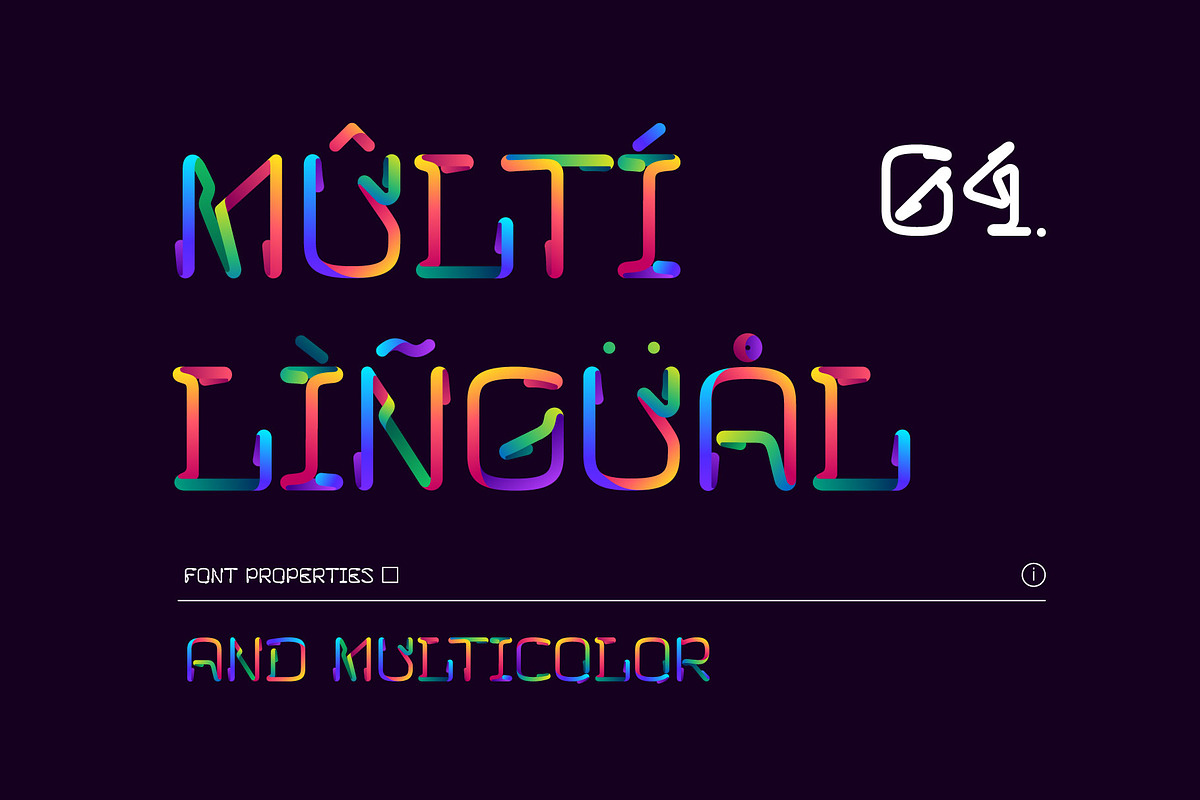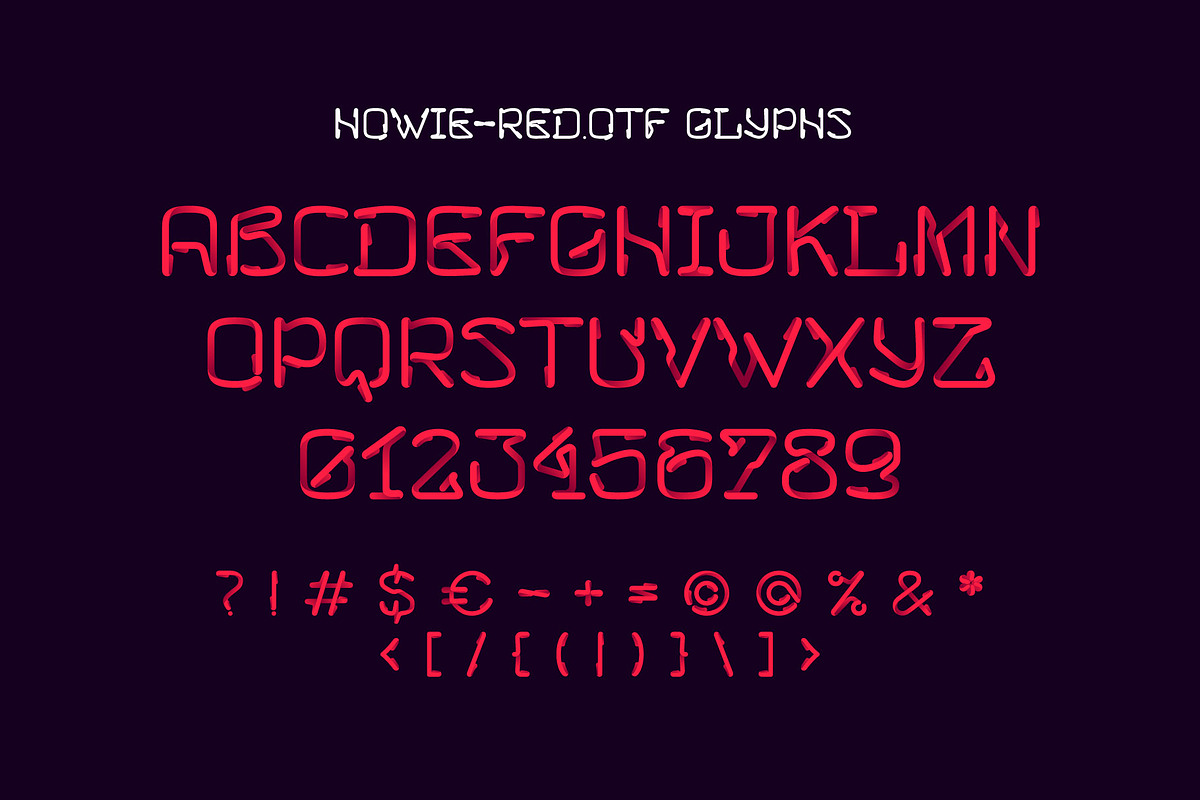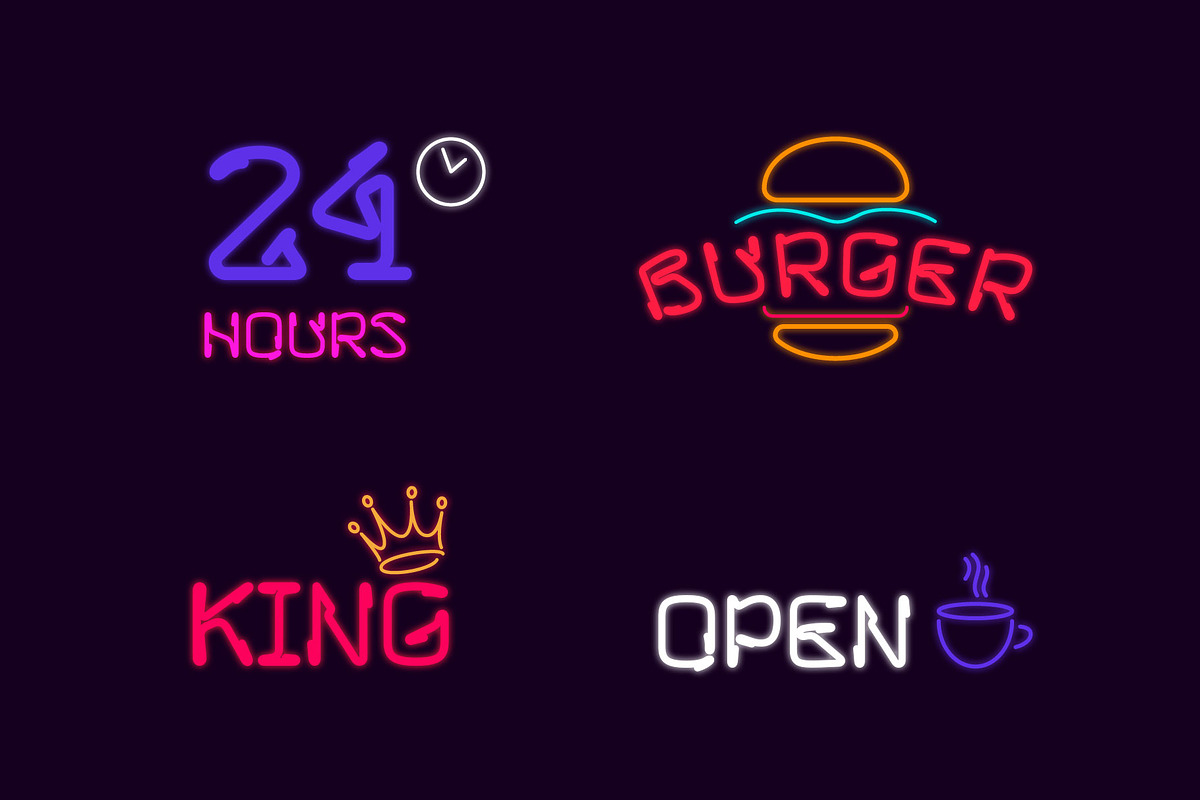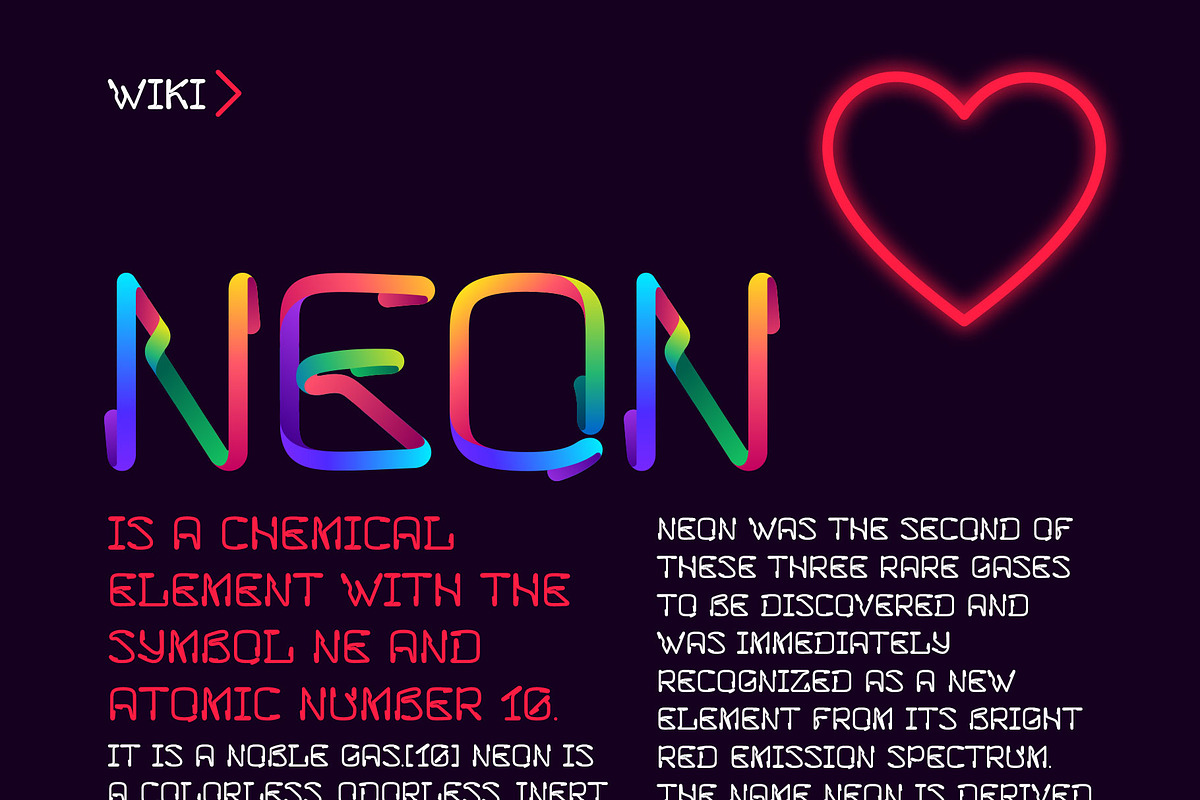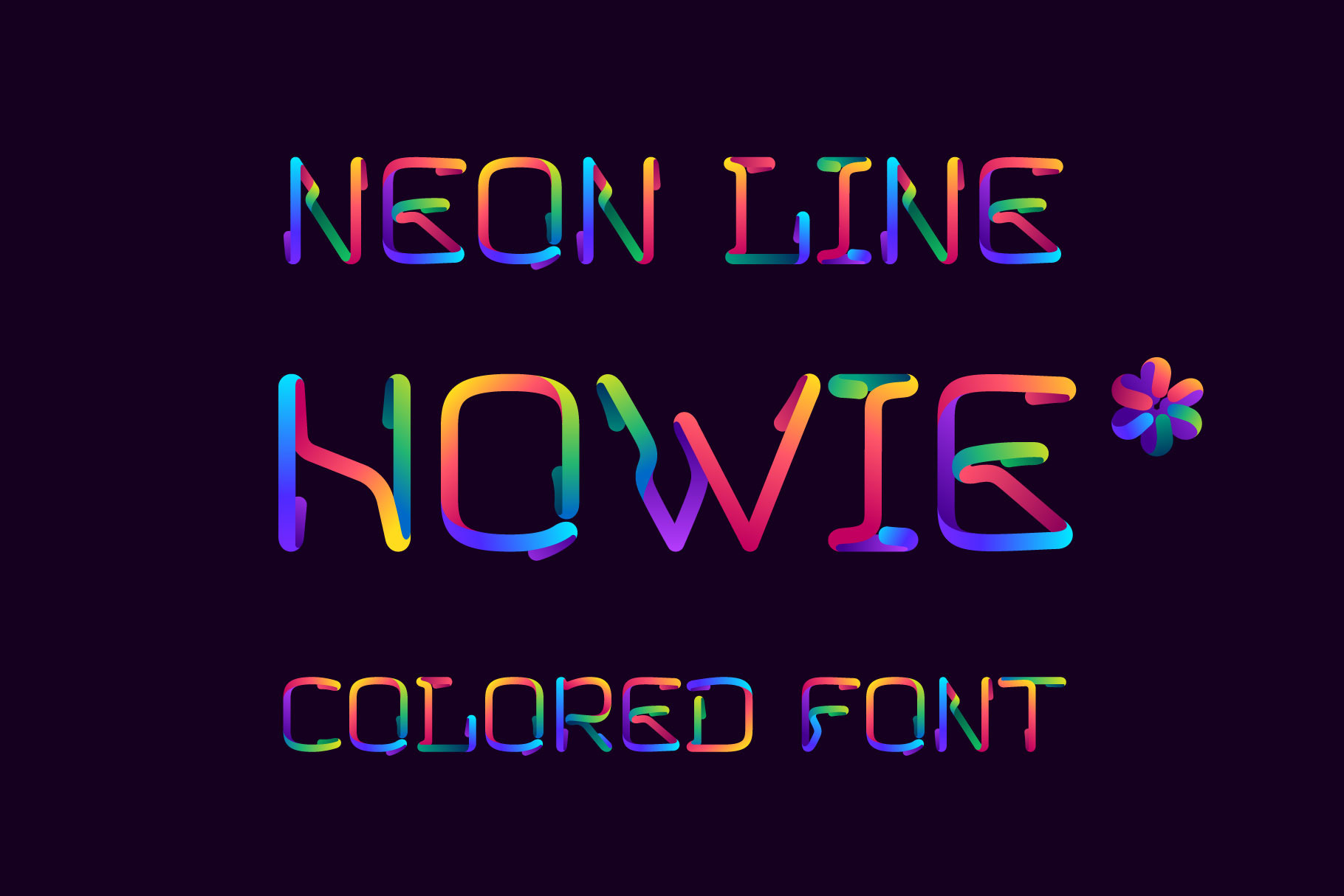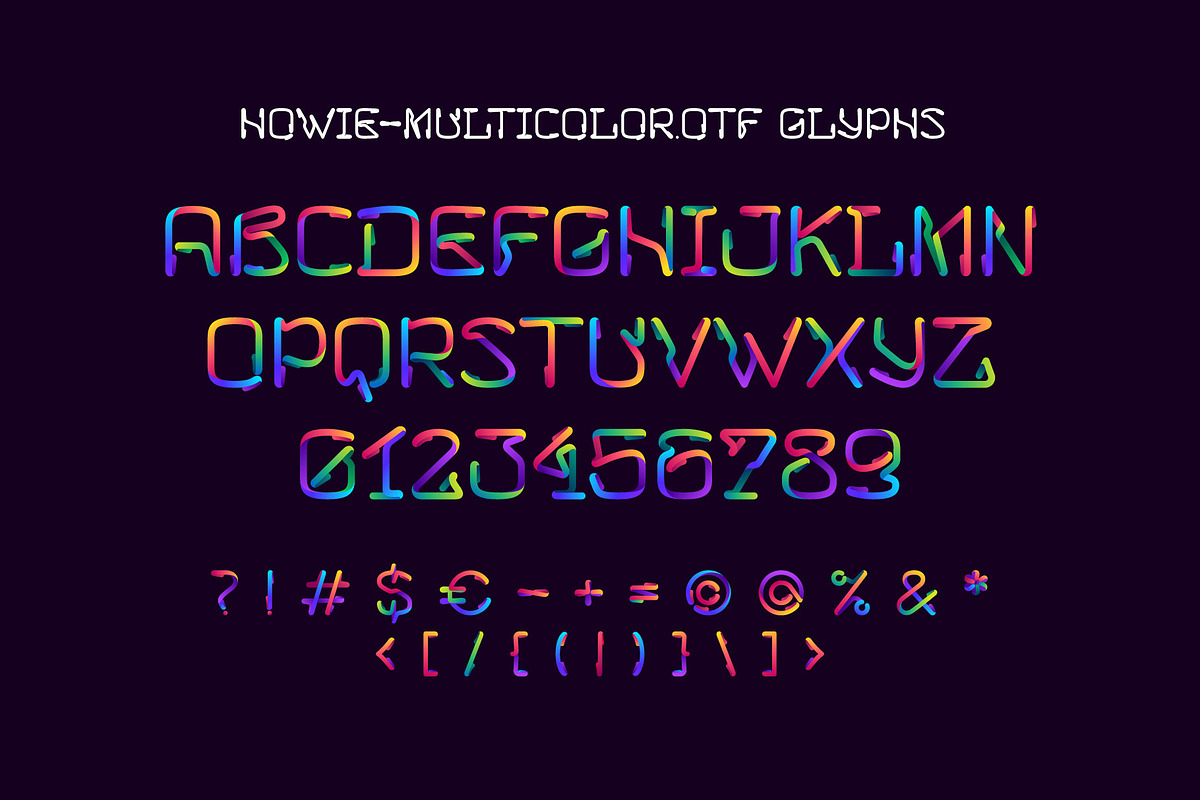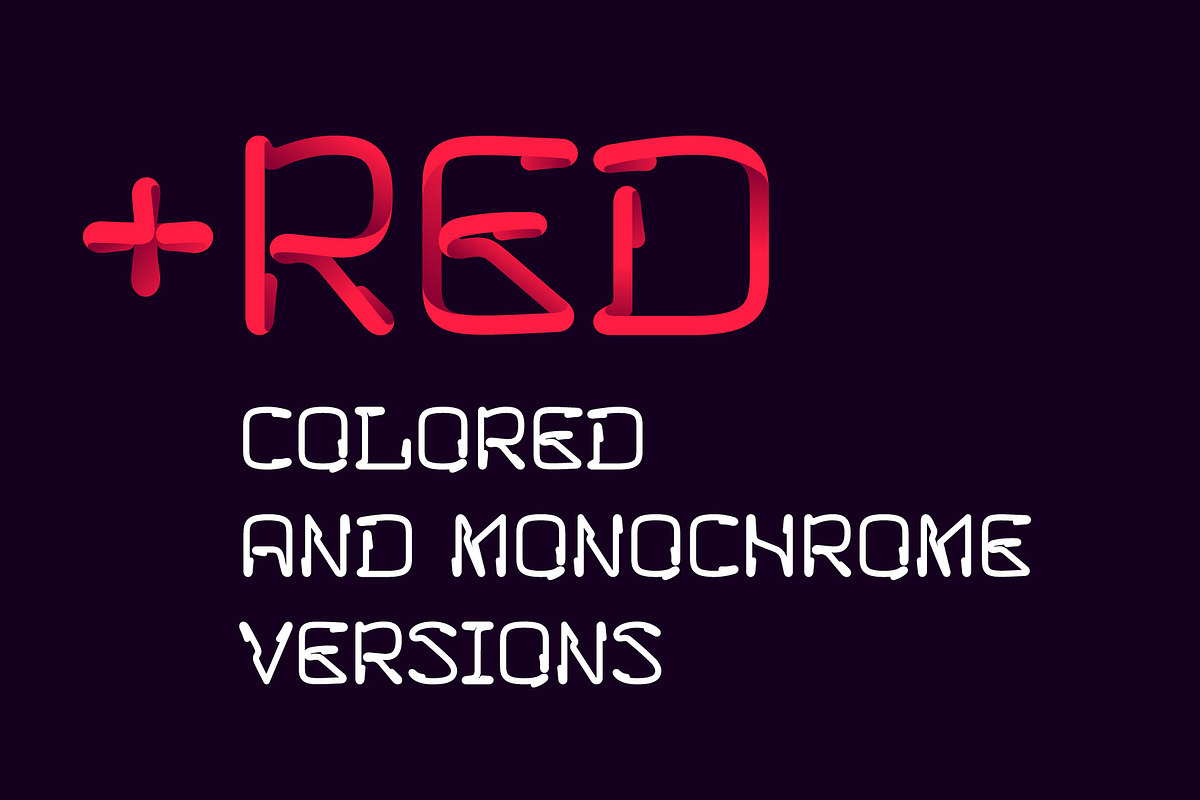
Howie neon line multicolored font
Howie neon line colored font inspired by real neon advertise. Colored tube font for line logo, nightlife banner and futuristic identity.
- Multicolored, red and regular styles
- Uppercase (lowercase glyphs are same)
- Numbers and symbols